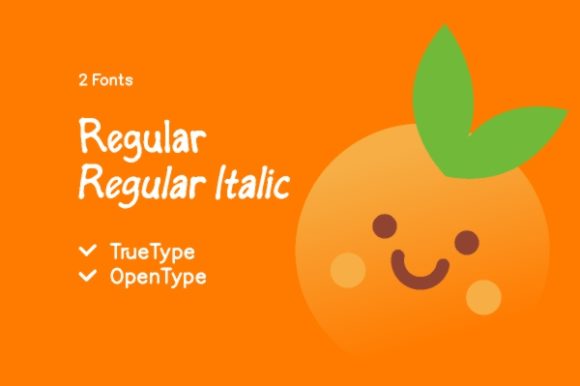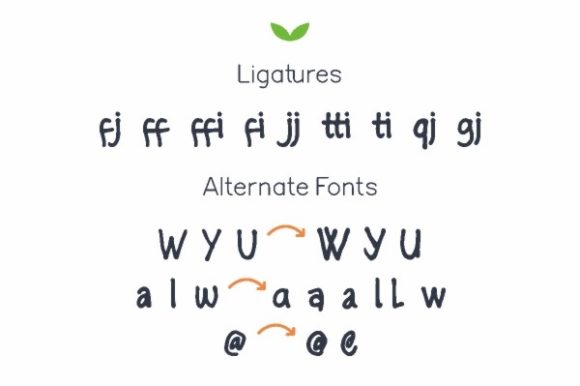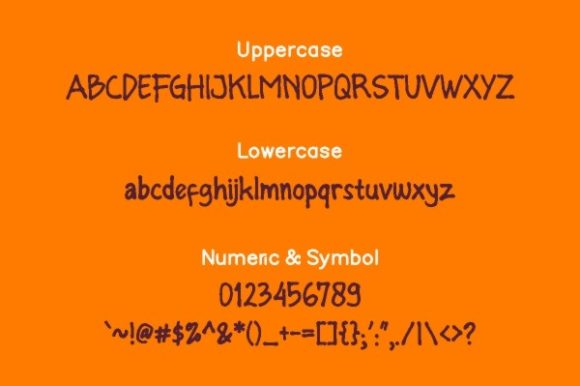
Happy Font
About Happy Font
Happy is a fun and quirky handwritten font with characters that seem to dance along the baseline. Add it to your lovely creations that need a funny, happy, and cute look!